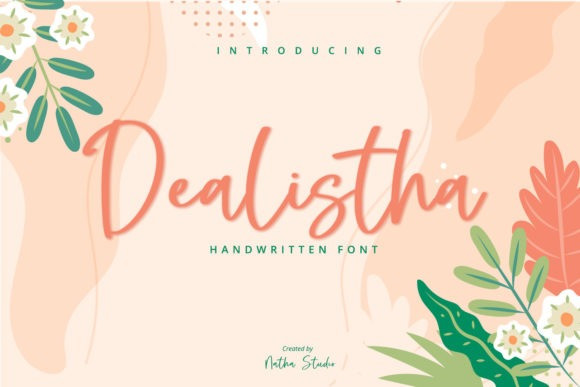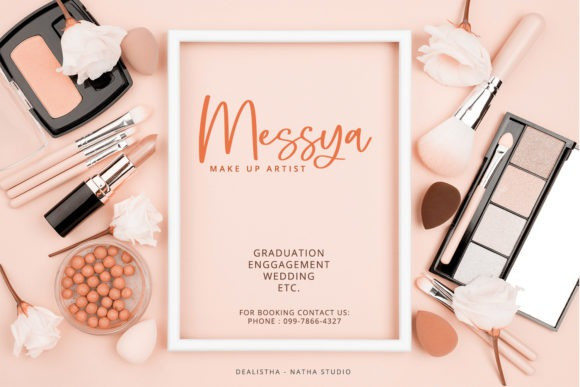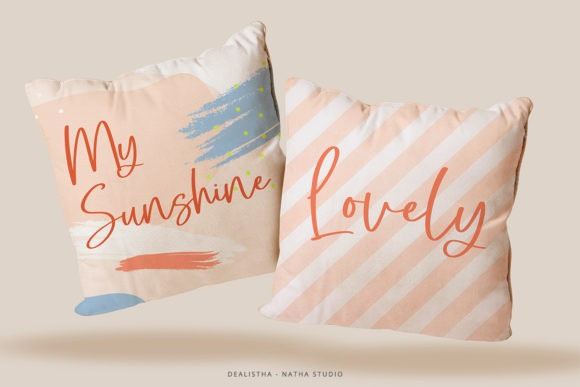
Dealistha Font
Dealistha is a chic, trendy script font that emanates confidence and versatility. Its stylish alternates and ligatures make this font the perfect match for any project.